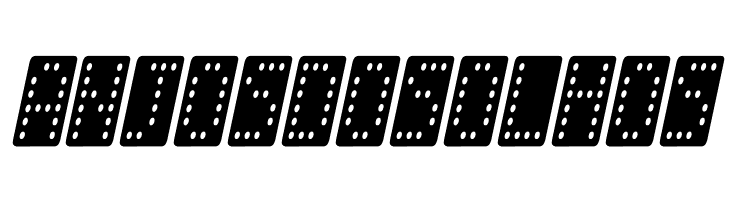
NumberpileReversed-Regular Font
- Font: NumberpileReversed-Regular
- Weight: Reversed
A bold, playful font with rounded edges and a cartoonish style.